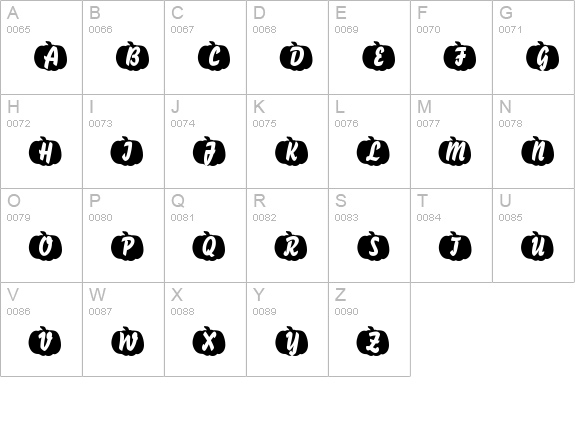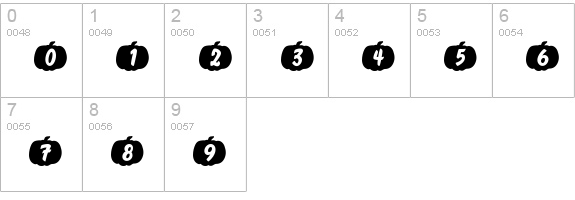
Pumpkinese Font Details
Introducing Pumpkinese font - a whimsical and playful typeface that captures the essence of the fall season. Inspired by the intricate patterns found in pumpkin carving, this font features unique and eye-catching letterforms that are sure to make your designs stand out. Pumpkinese is the perfect choice for Halloween-themed projects, autumnal marketing materials, greeting cards, and more. Its handcrafted appearance adds a touch of charm and personality to any design. Best of all, Pumpkinese font is freely available to download at FontsMarket.com. Don't miss out on adding this fun and festive font to your collection today!